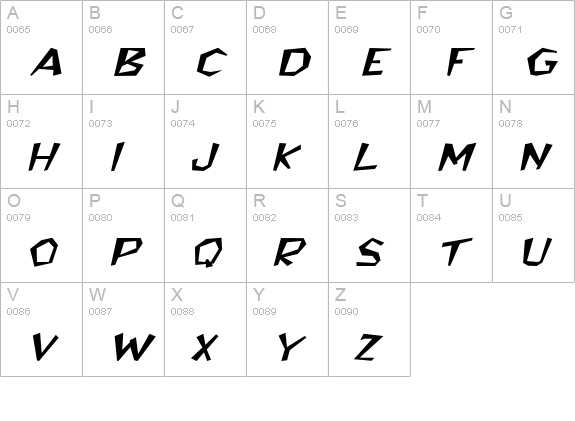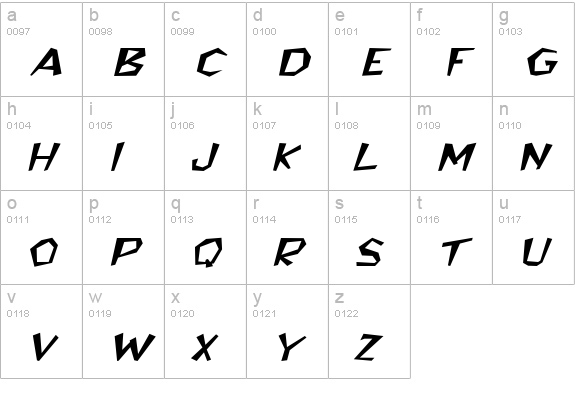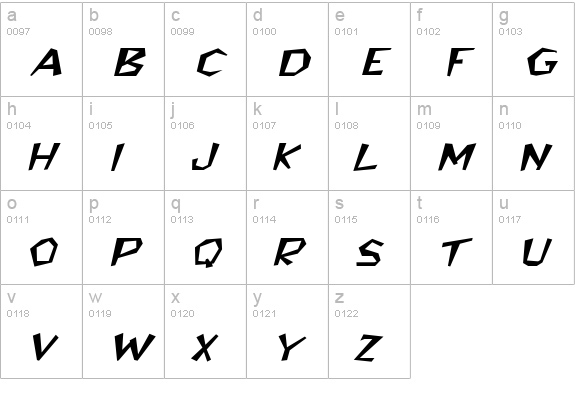
BedrockWide Italic Font Details
BedrockWide Italic is a distinctive, italic variant in the BedrockWide typeface family \xE2\x80\x94 well suited to design and typography projects.
Introducing BedrockWide Italic font, a modern and elegant typeface that is perfect for adding a touch of sophistication to your designs. With its sleek lines and distinctive italic styling, BedrockWide Italic exudes a sense of luxury and refinement. This font is versatile and can be used for a wide range of design projects, from branding and logos to invitations and social media graphics. Its wide character set ensures that you can create eye-catching typography that stands out from the crowd. The best part? BedrockWide Italic font is available for free download at FontsMarket.com. Don't miss out on the opportunity to enhance your design projects with this stunning and stylish typeface. Download BedrockWide Italic today and elevate your designs to the next level.